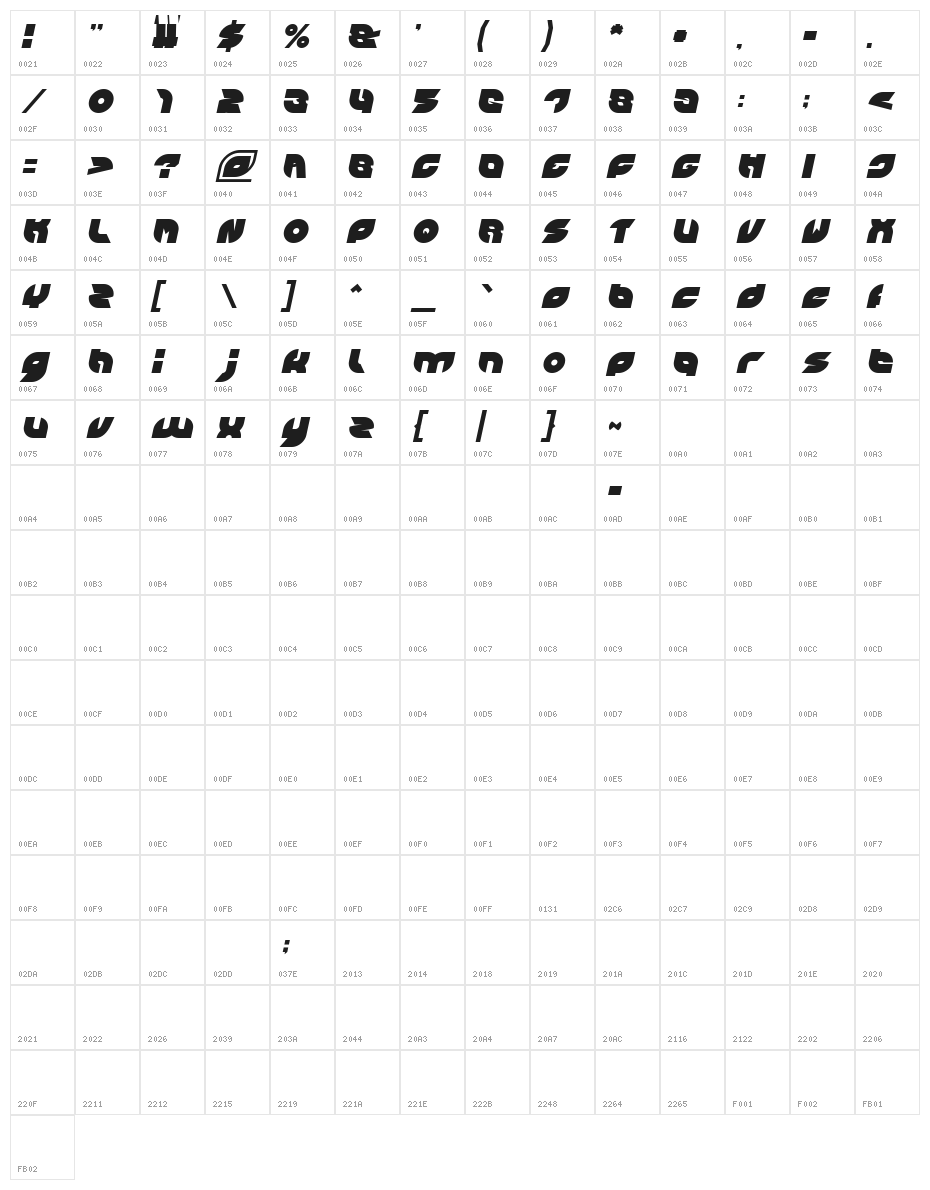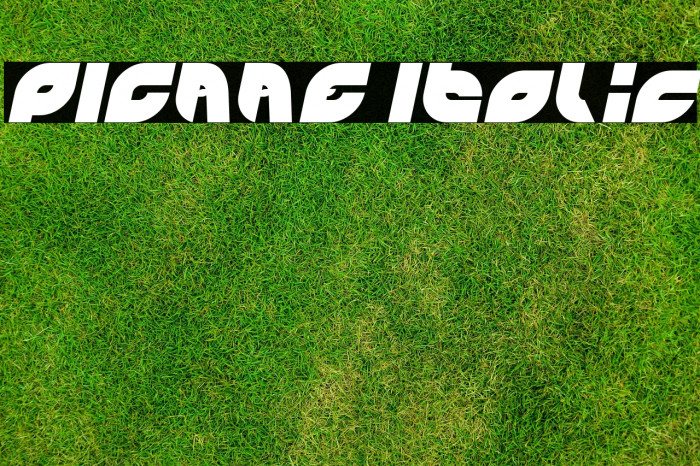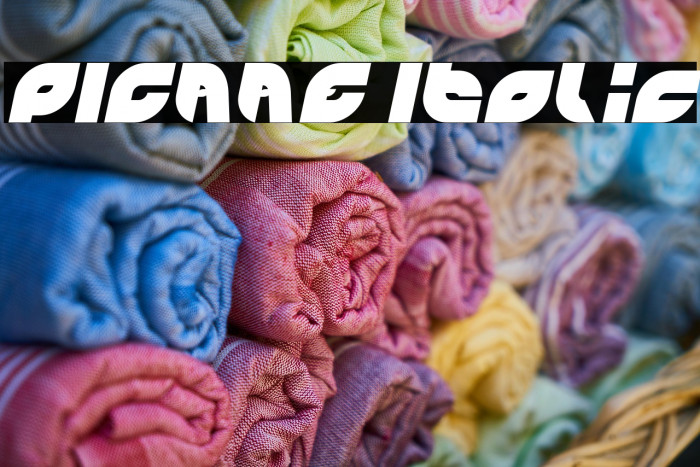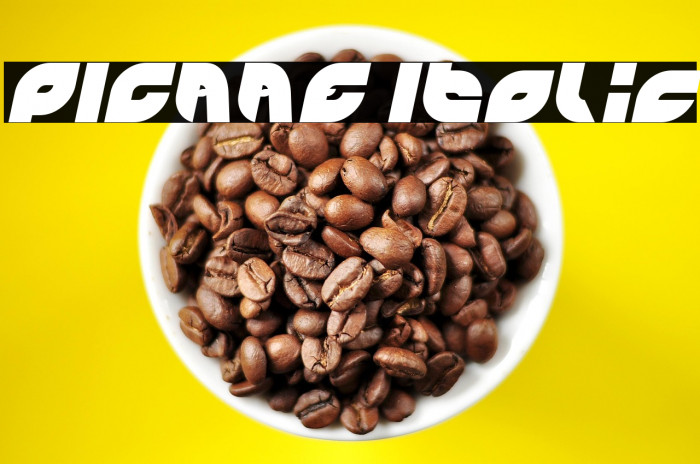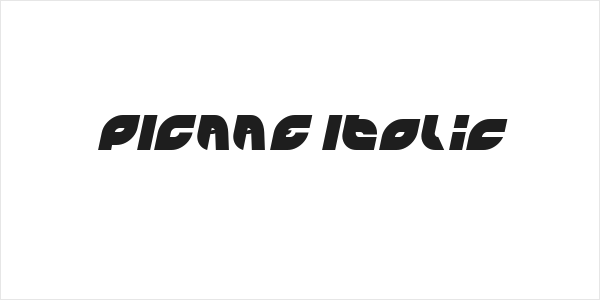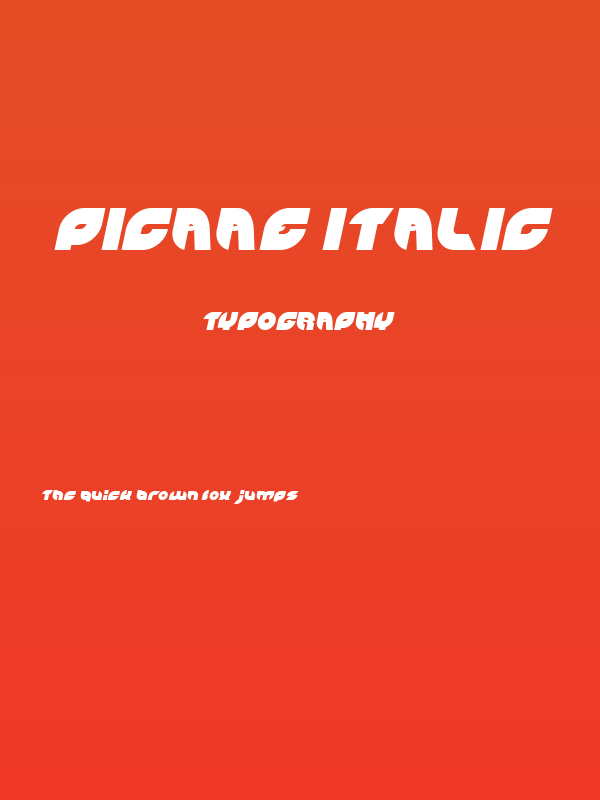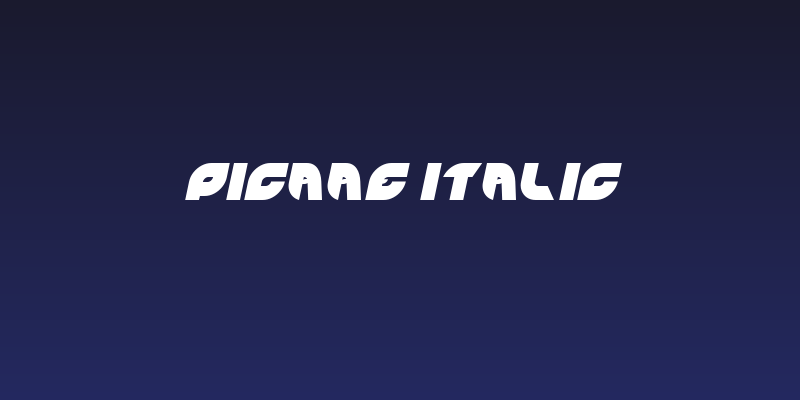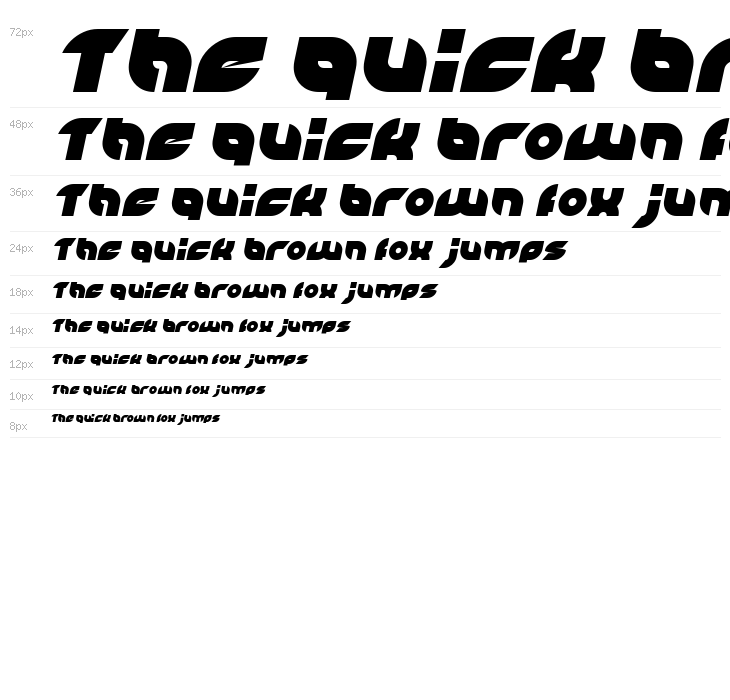
PICAAE Italic Font
PICAAE Italic Description
This font features a bold and dynamic style with a futuristic flair. The characters are heavily stylized with sharp angles and a distinct slant, giving it a sense of motion and energy. The uppercase and lowercase letters maintain a consistent design, with thick strokes and minimal contrast, creating a cohesive look. The numbers and special characters follow the same aesthetic, ensuring uniformity across all glyphs. This font's unique appearance makes it stand out, ideal for projects that require a modern and edgy touch.
| Overall Style | Futuristic, Dynamic |
| Proposed Projects | Ideal for sci-fi themed designs, video game titles, tech branding, and modern posters. |